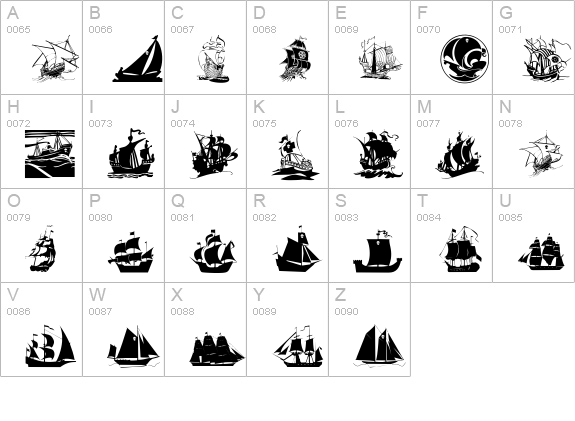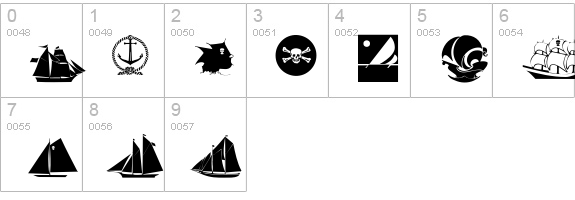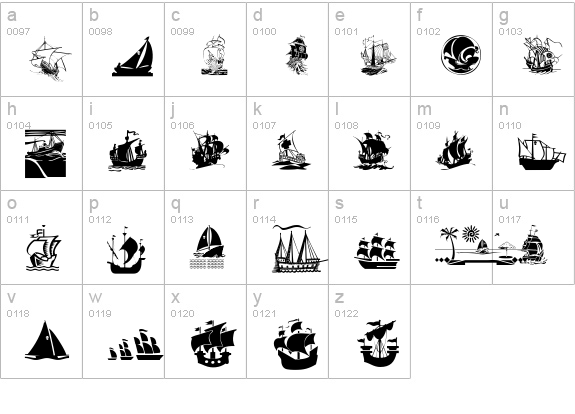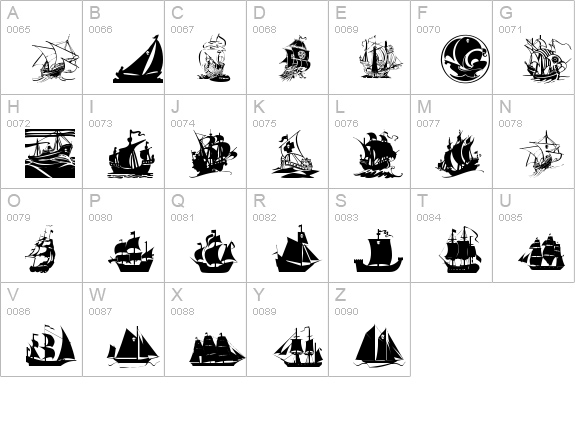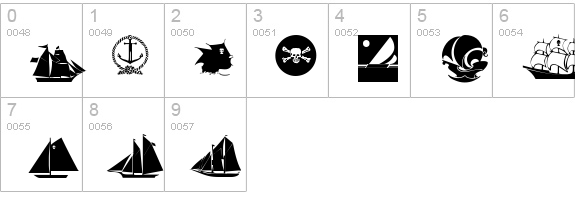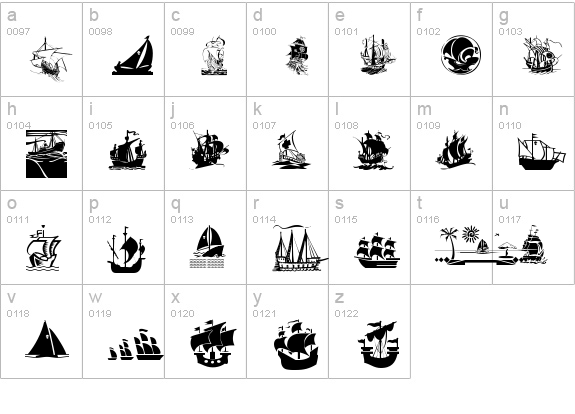
ArmadaPirata Font Details
ArmadaPirata font is a bold and adventurous typeface that exudes a sense of swashbuckling excitement. With its sharp edges and strong presence, this font is perfect for projects that require a touch of daring and boldness. The unique design of ArmadaPirata font captures the spirit of a pirate's armada, ready to set sail on high seas and embark on thrilling adventures. What makes ArmadaPirata font even more appealing is that it is available for free download at FontsMarket.com. This means that you can easily access this captivating typeface and incorporate it into your designs without any cost. Whether you're working on a poster, logo, or any other creative project, ArmadaPirata font is sure to make a bold statement and leave a lasting impression. Download it today and let your imagination set sail with this exciting and free font option.